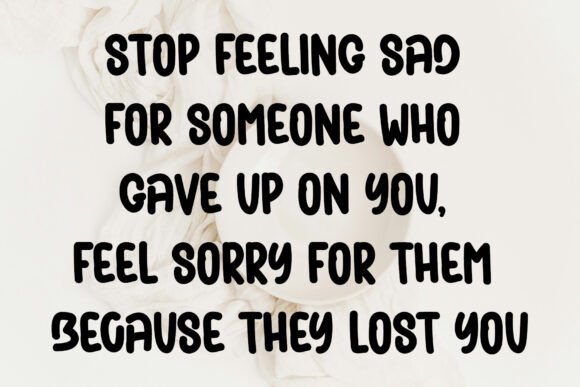
Black Market Font: A Cute and Charming Addition to Your Designs
The world of typography is vast and exciting, with countless fonts to choose from, each with its unique character and personality. If you’re looking for a font that can add a touch of whimsy and quirkiness to your designs, look no further than the Black Market font. This adorable font is sure to brighten up any project and leave a lasting impression on your audience.
What is Black Market Font?
Black Market is a cute and charming font that is perfect for designers who want to add a bit of personality to their work. With its whimsical and quirky style, this font is sure to stand out from the crowd and make your designs shine. Whether you’re working on a branding project, a website, or a marketing campaign, Black Market font is a great choice.
Key Features of Black Market Font
- Whimsical and quirky style: Black Market font has a unique and playful style that is sure to add a touch of personality to your designs.
- Cute and charming: This font is perfect for designers who want to create a friendly and approachable vibe in their work.
- Highly versatile: Black Market font can be used in a variety of projects, from branding and advertising to web design and more.
- Easily readable: Despite its playful style, Black Market font is highly readable, making it perfect for body text and headlines.
Ideas for Using Black Market Font
Black Market font is a versatile and fun font that can be used in a variety of projects. Here are some ideas to get you started:
- Branding and logos: Use Black Market font to create a unique and memorable logo for your brand.
- Web design: Add a touch of personality to your website with Black Market font, perfect for headings and titles.
- Marketing and advertising: Use Black Market font in your marketing materials, such as brochures, flyers, and posters.
- Social media graphics: Create eye-catching social media graphics with Black Market font, perfect for grabbing attention.
Tips and Tricks for Using Black Market Font
Here are some tips and tricks for getting the most out of Black Market font:
- Experiment with colors: Black Market font looks great in a variety of colors, so don’t be afraid to experiment and find the perfect hue for your design.
- Mix and match: Combine Black Market font with other fonts to create a unique and interesting look.
- Pay attention to spacing: Make sure to leave enough space between letters and lines to ensure that your text is easy to read.
- Have fun: The most important thing is to have fun and be creative with Black Market font!
Pairing Black Market Font with Other Fonts
Black Market font can be paired with a variety of other fonts to create a unique and interesting look. Here are some suggestions:
- Open Sans: A clean and modern sans-serif font that pairs well with the playful style of Black Market font.
- Lato: A sleek and elegant sans-serif font that provides a nice contrast to the whimsical style of Black Market font.
- Merriweather: A classic serif font that adds a touch of sophistication and elegance to designs featuring Black Market font.
Frequently Asked Questions About Black Market Font
- What is Black Market font?: Black Market font is a cute and charming font with a whimsical and quirky style.
Black Market font is a unique and charming addition to any design project. With its whimsical and quirky style, this font is sure to brighten up your work and leave a lasting impression on your audience. Whether you’re a seasoned designer or just starting out, Black Market font is a great choice for adding a touch of personality to your designs.